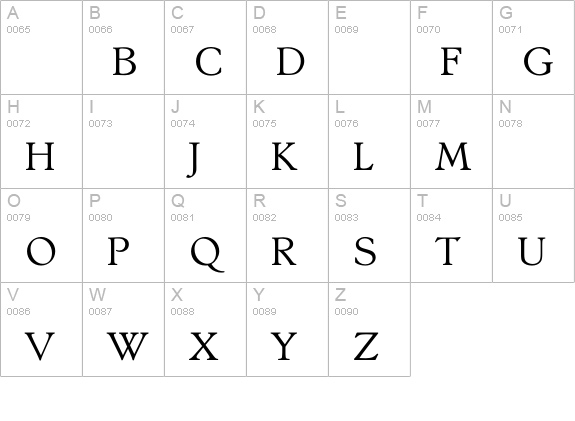
StanhopeLight Font Details
Introducing StanhopeLight, a stunningly elegant font that exudes sophistication and charm. With its delicate and refined strokes, this font effortlessly captures attention and adds a touch of class to any creative project. StanhopeLight is the perfect choice for those seeking a font that combines elegance with modern simplicity. Its sleek and slender letterforms possess a captivating beauty that is both timeless and contemporary. Whether used for headlines, invitations, or branding materials, this font will effortlessly elevate the visual appeal of any design. What makes StanhopeLight even more appealing is that it is completely free. Yes, you read that right - this exceptional font is freely available to download at FontsMarket.com. Now, you can enhance your creative endeavors without compromising your budget. Embrace the versatility of StanhopeLight and unlock a world of possibilities in typography. With its wide range of glyphs and meticulous attention to detail, StanhopeLight offers versatility and legibility in abundance. Its generous x-height and well-balanced proportions make it an excellent choice for both print and digital designs. From logos to packaging, from websites to social media graphics, this font will effortlessly adapt to any medium. The subtle curves and graceful lines of StanhopeLight create an atmosphere of sophistication and refinement. Its gentle serifs add an element of timeless beauty, making it a font that can be used for elegant wedding invitations or upscale restaurant menus. Let StanhopeLight become the signature font that sets your design apart from the rest. Experience the beauty and versatility of StanhopeLight today. Download it for free at FontsMarket.com and let your creativity soar. Whether you're a professional designer or a DIY enthusiast, this font will undoubtedly become a valuable asset in your typographic toolbox. Elevate your designs with StanhopeLight and let your words shine with elegance and grace.